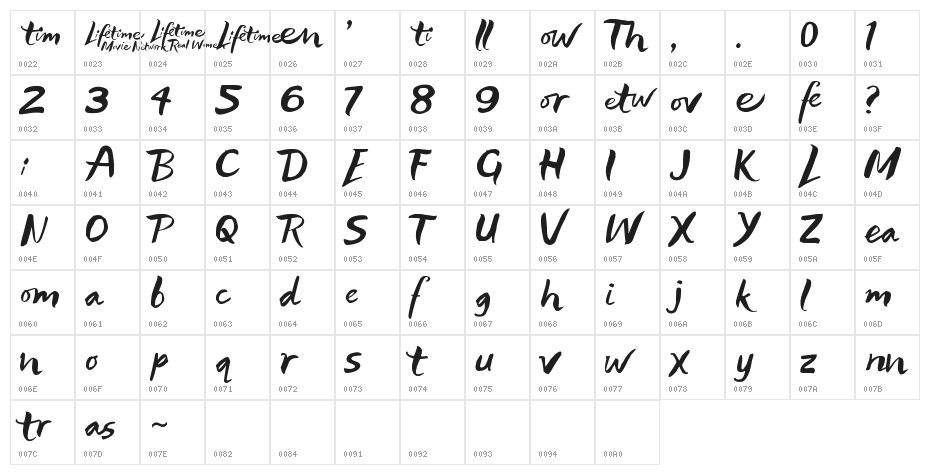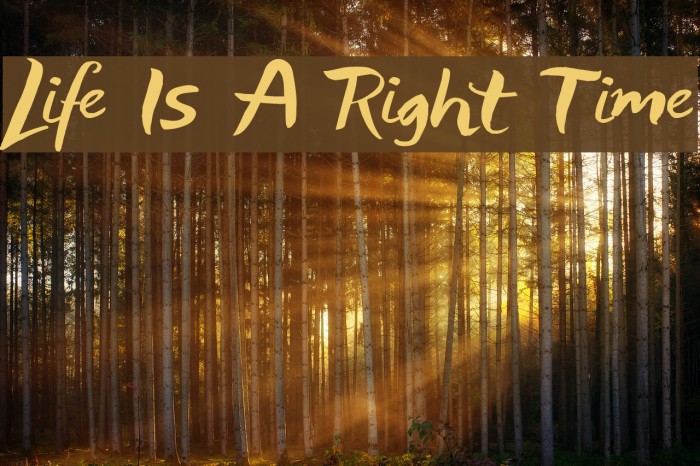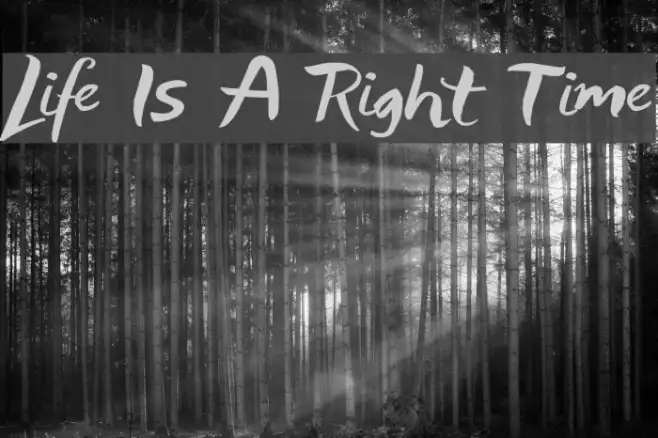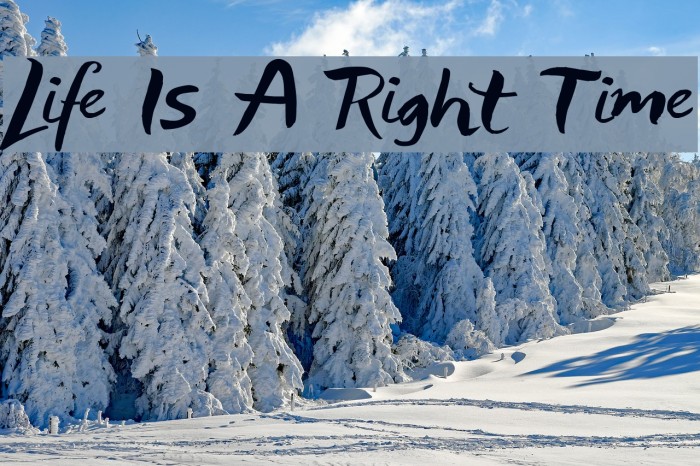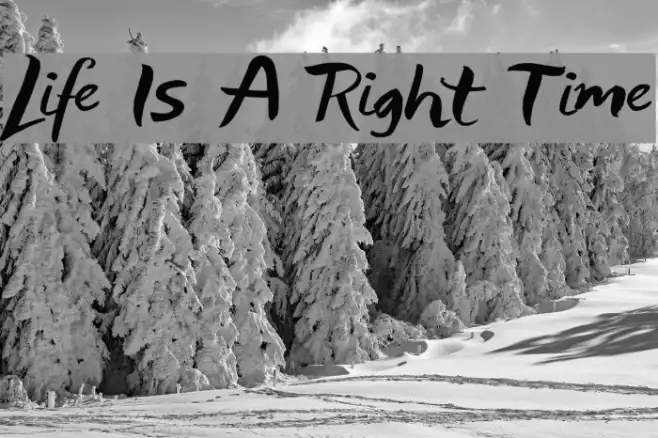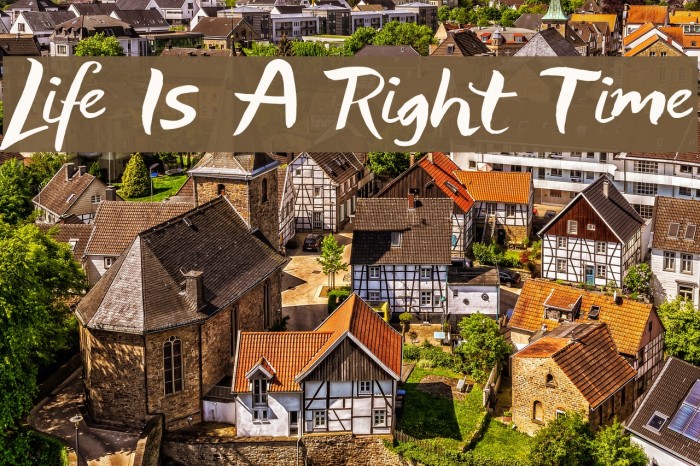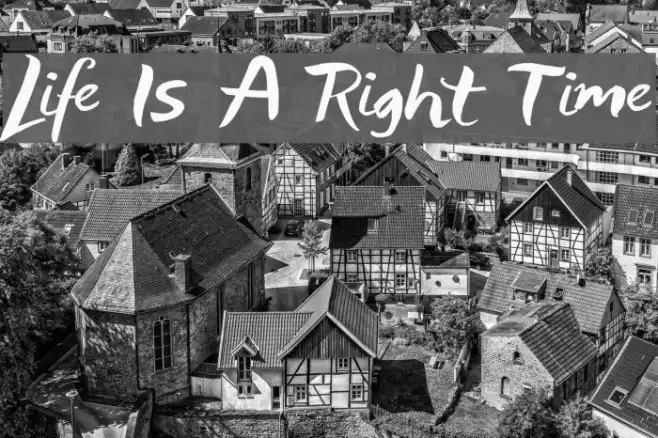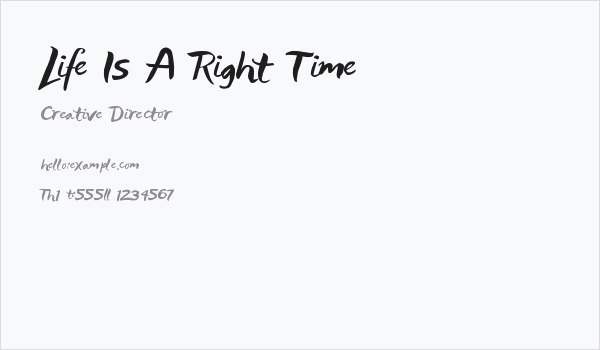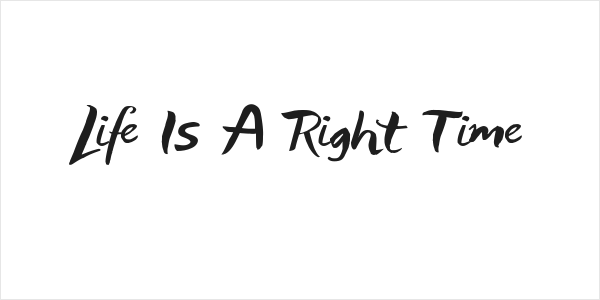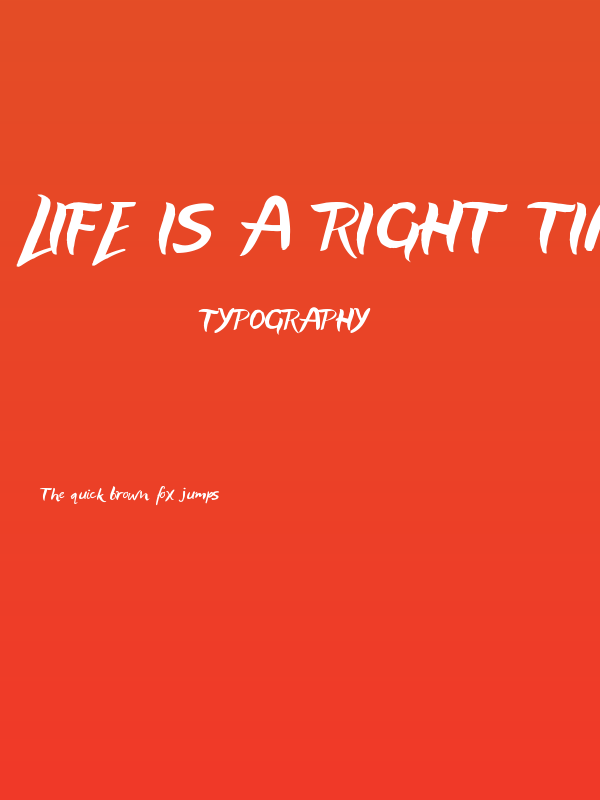
Life Is A Right Time Font
Life Is A Right Time Description
This font exudes a dynamic and expressive style, characterized by its bold, brush-like strokes that convey a sense of movement and energy. The letters are slightly slanted, adding to the fluidity and informal nature of the design. The uppercase and lowercase letters maintain a consistent style, with some characters featuring exaggerated curves and angles that enhance the handwritten feel. The numerals are equally bold, matching the overall aesthetic of the alphabet. This font is ideal for projects that require a personal, artistic touch, such as branding, posters, or creative invitations.
| Proposed Projects | Branding, posters, creative invitations, artistic projects, and expressive designs. |